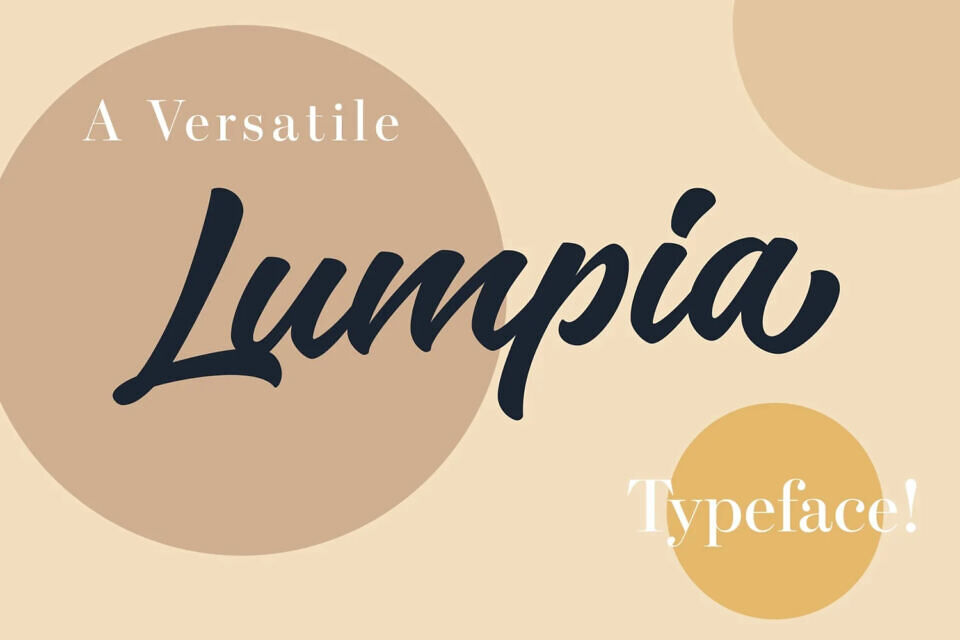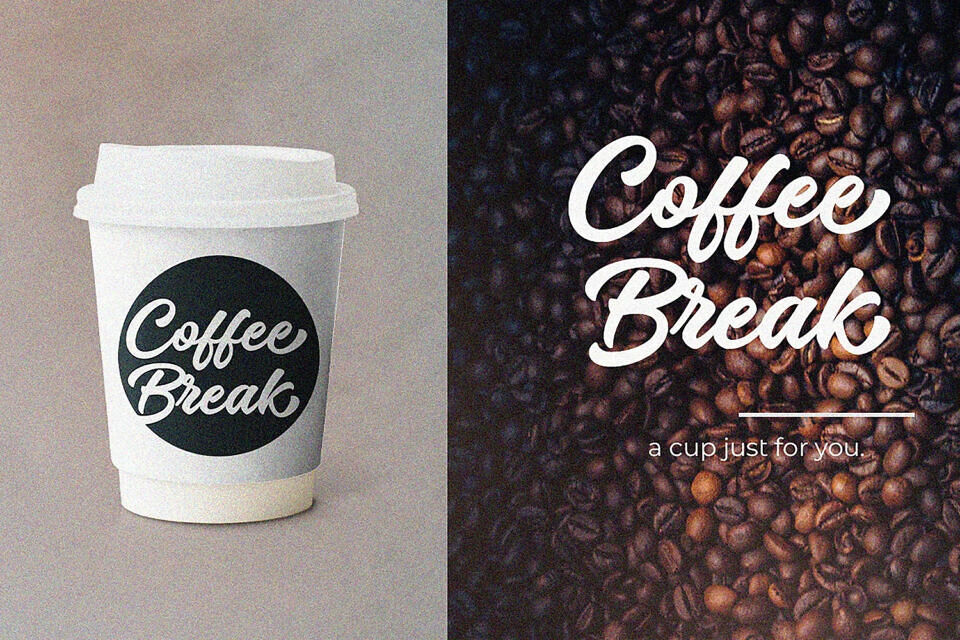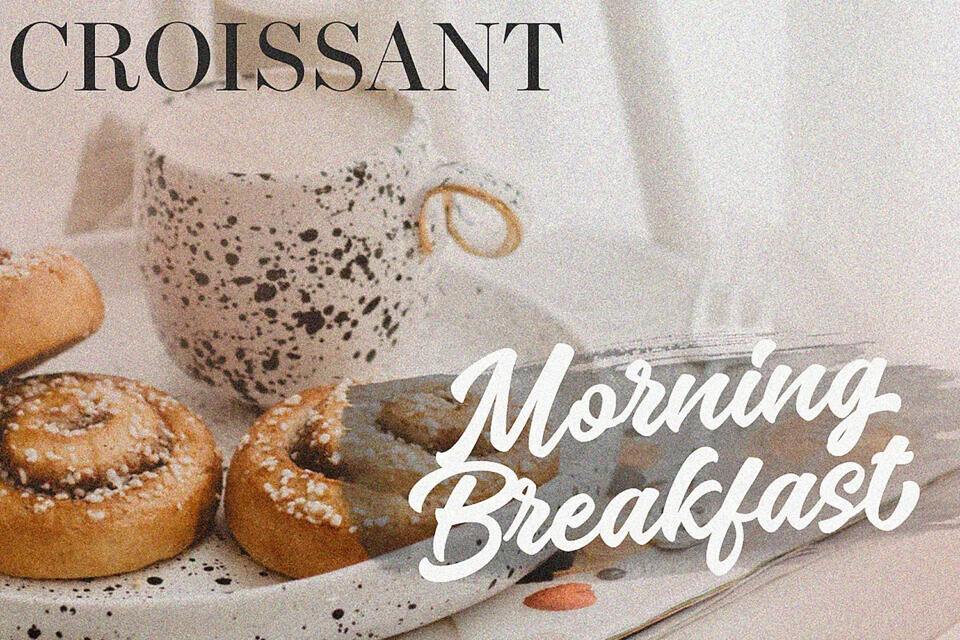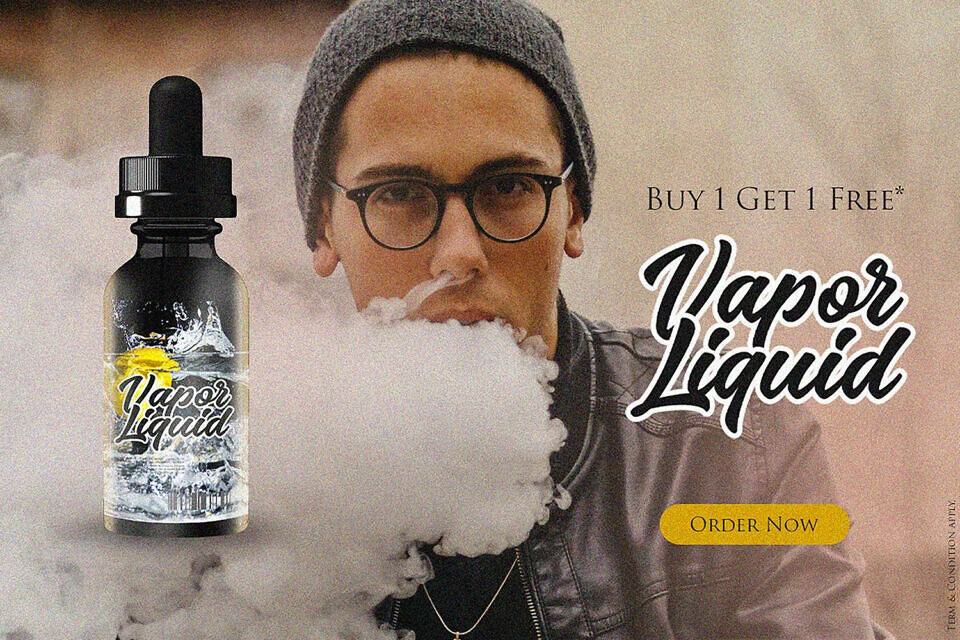
Introducing Lumpia, a bold script font imbued with natural charm. Perfect for a variety of creative projects including logos, printed quotes, invitations, cards, product packaging, headers, letterheads, posters, apparel design, labels, and more.
Lumpia Brush features uppercase and lowercase letters, numerals, punctuation marks, multilingual support, and alternative glyphs on each character. It also comes with OpenType features, common ligatures, and additional swashes to enhance your design options and creativity.